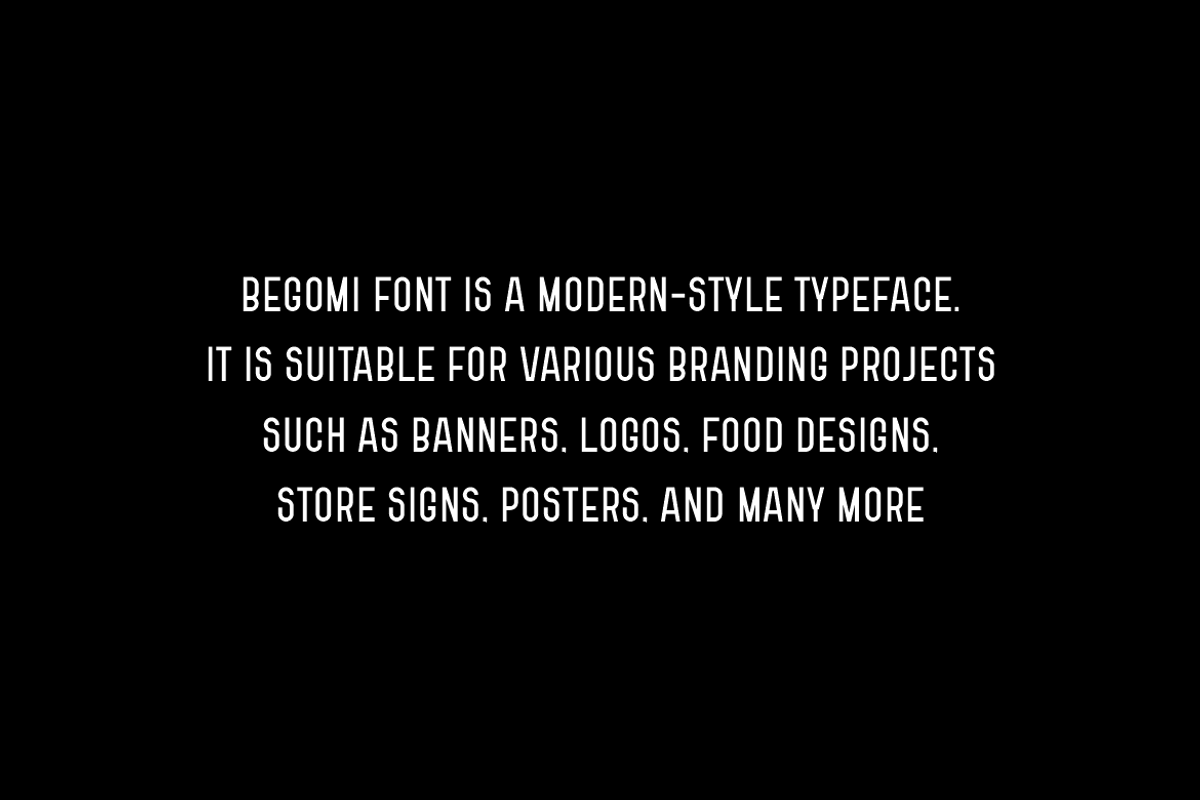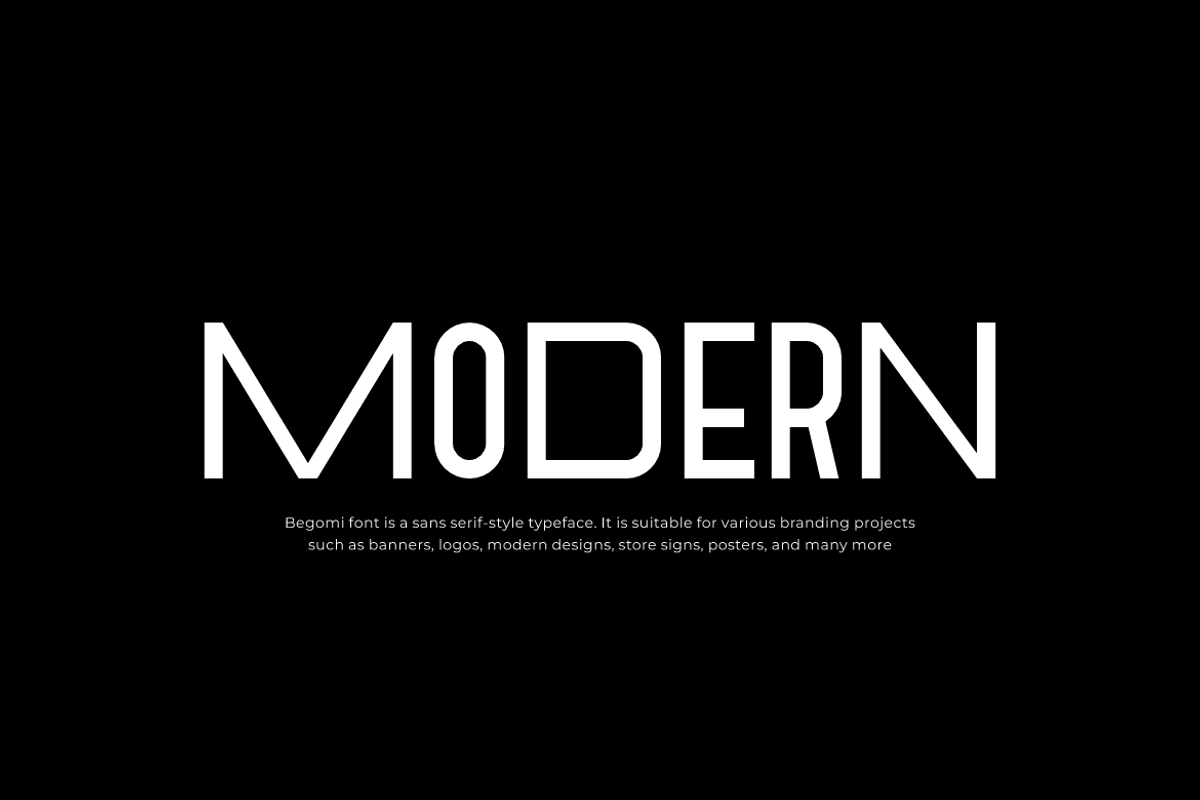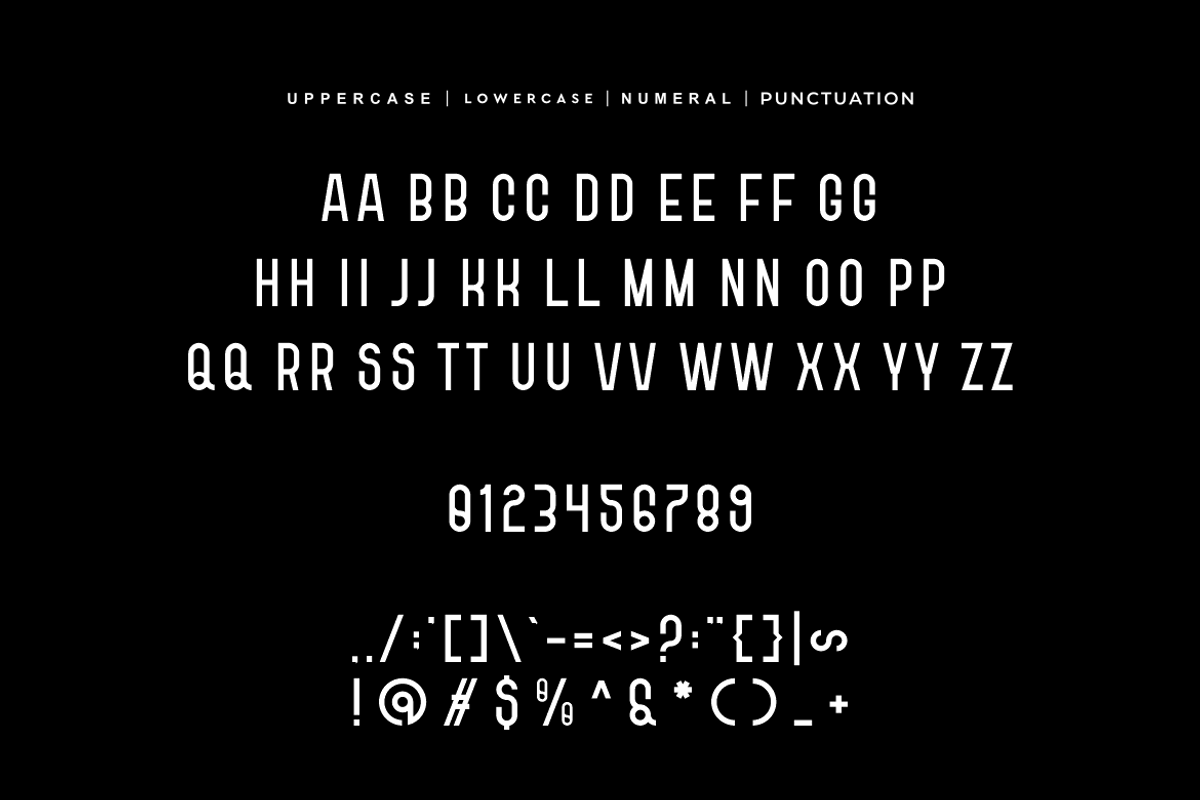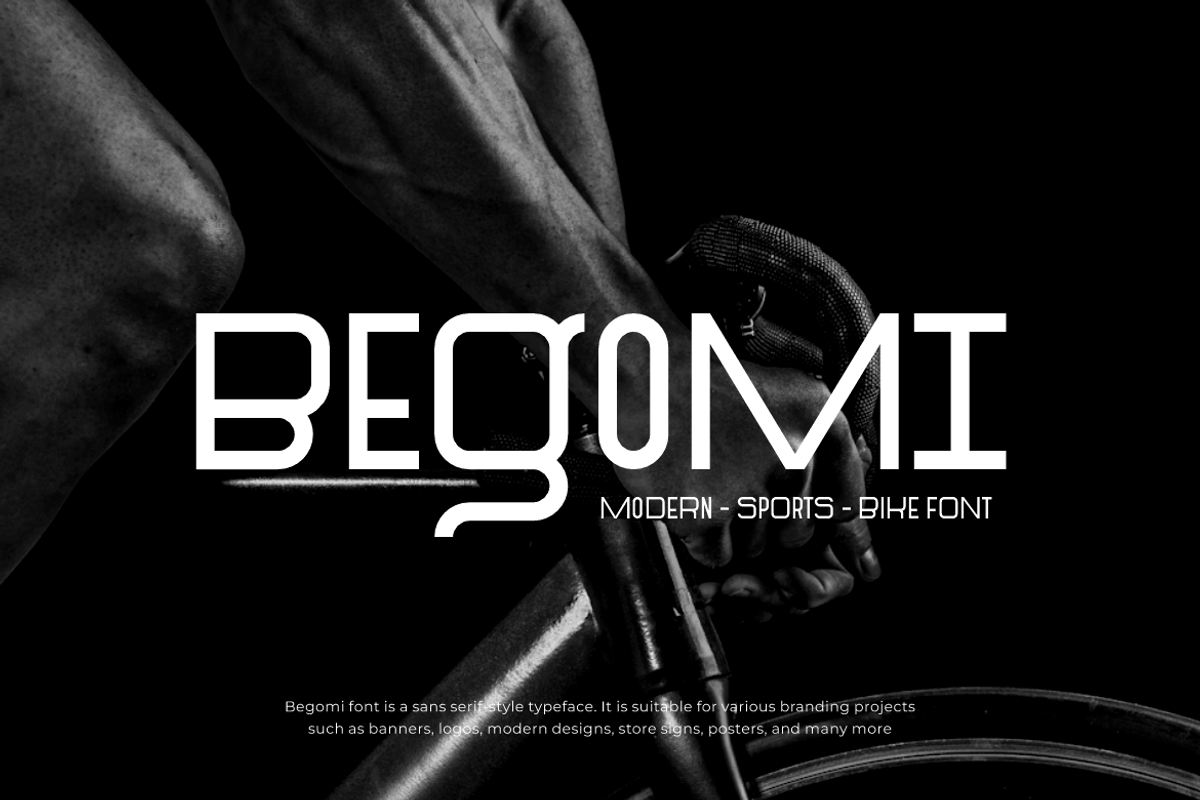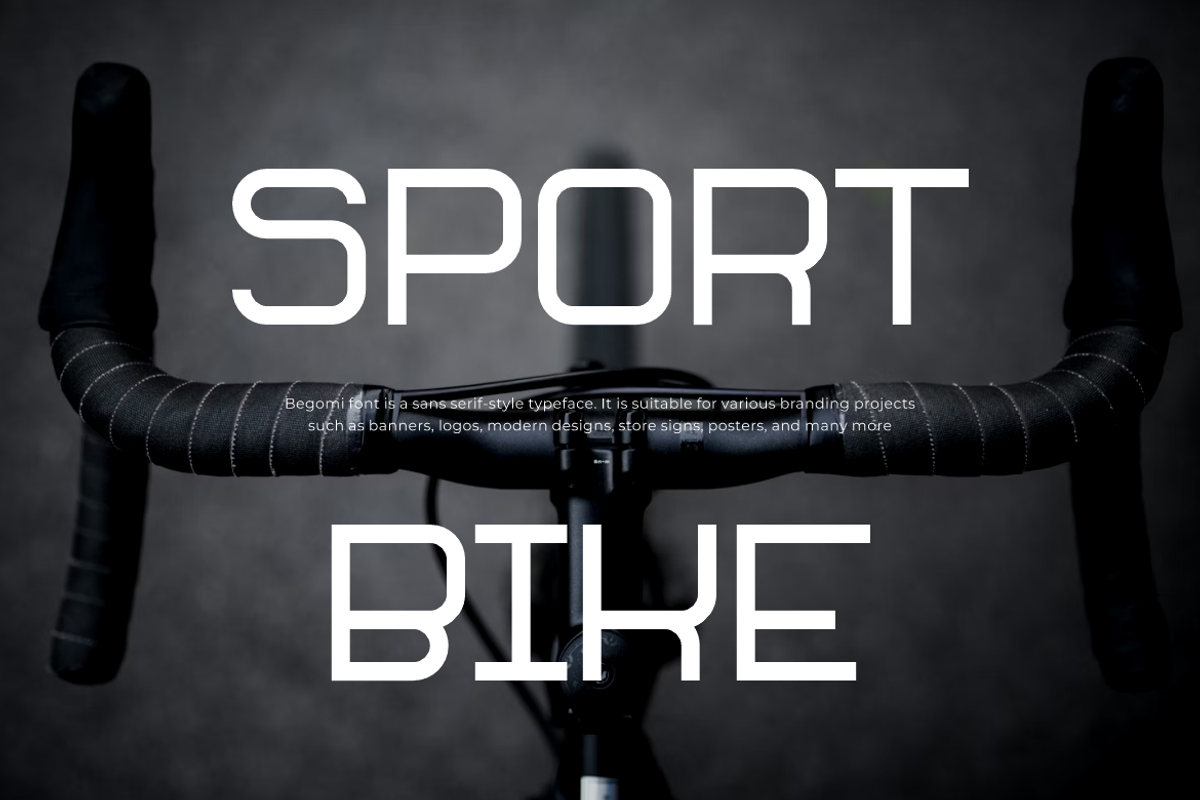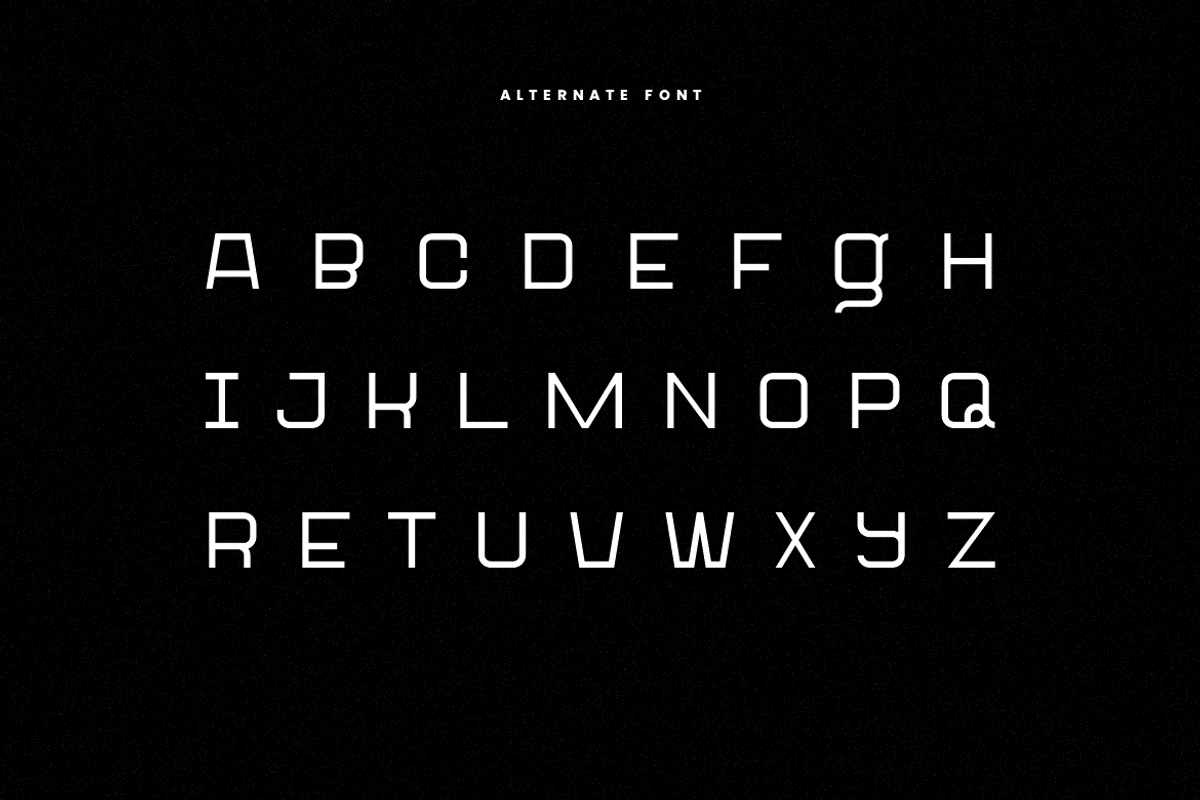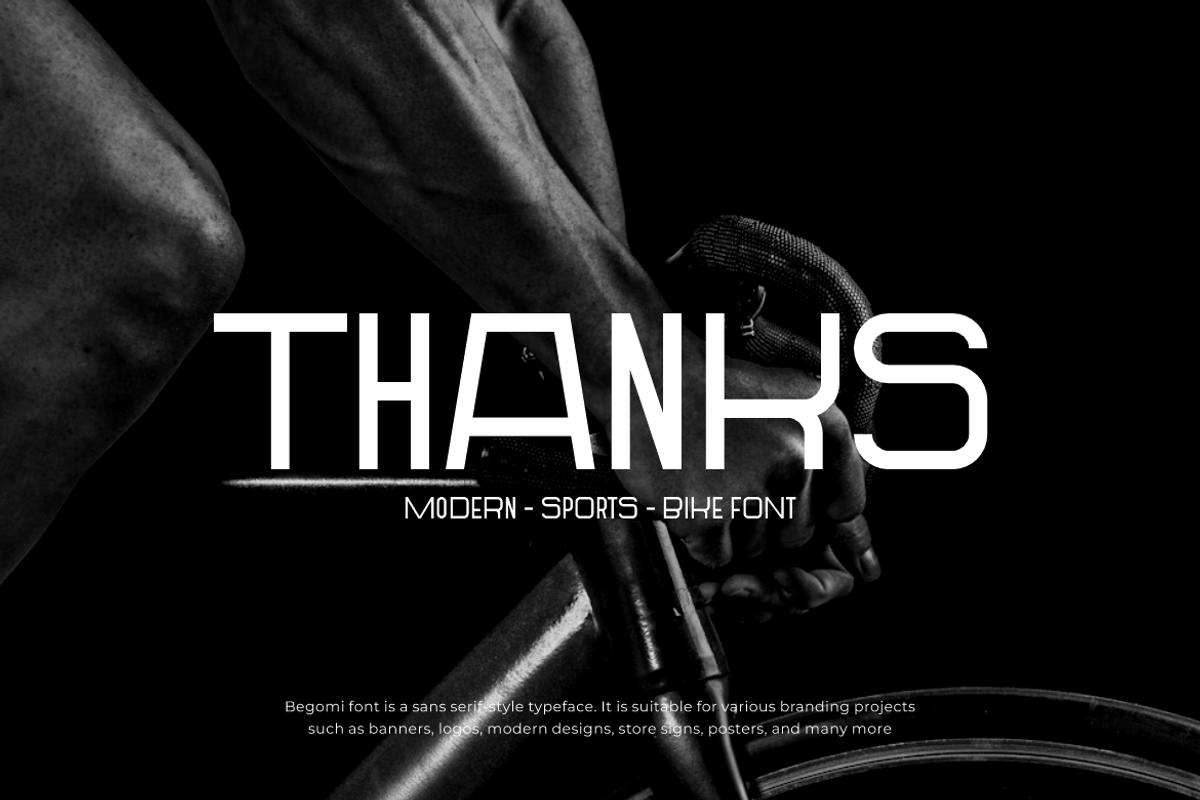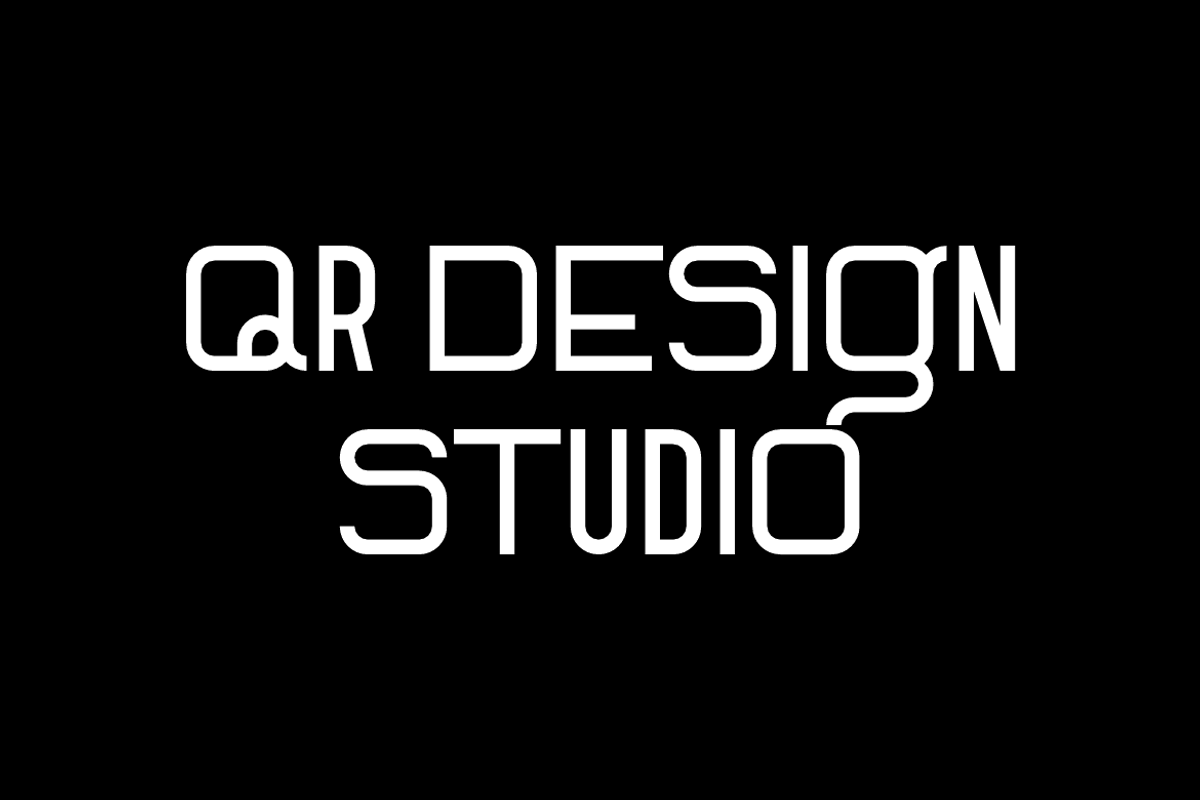
Begomi - Sports Bike Font
Begomi Font is a bold and authentic display typeface. It’s perfect for various branding projects such as logos, sports designs, and more. This font stands out beautifully in a wide range of contexts.